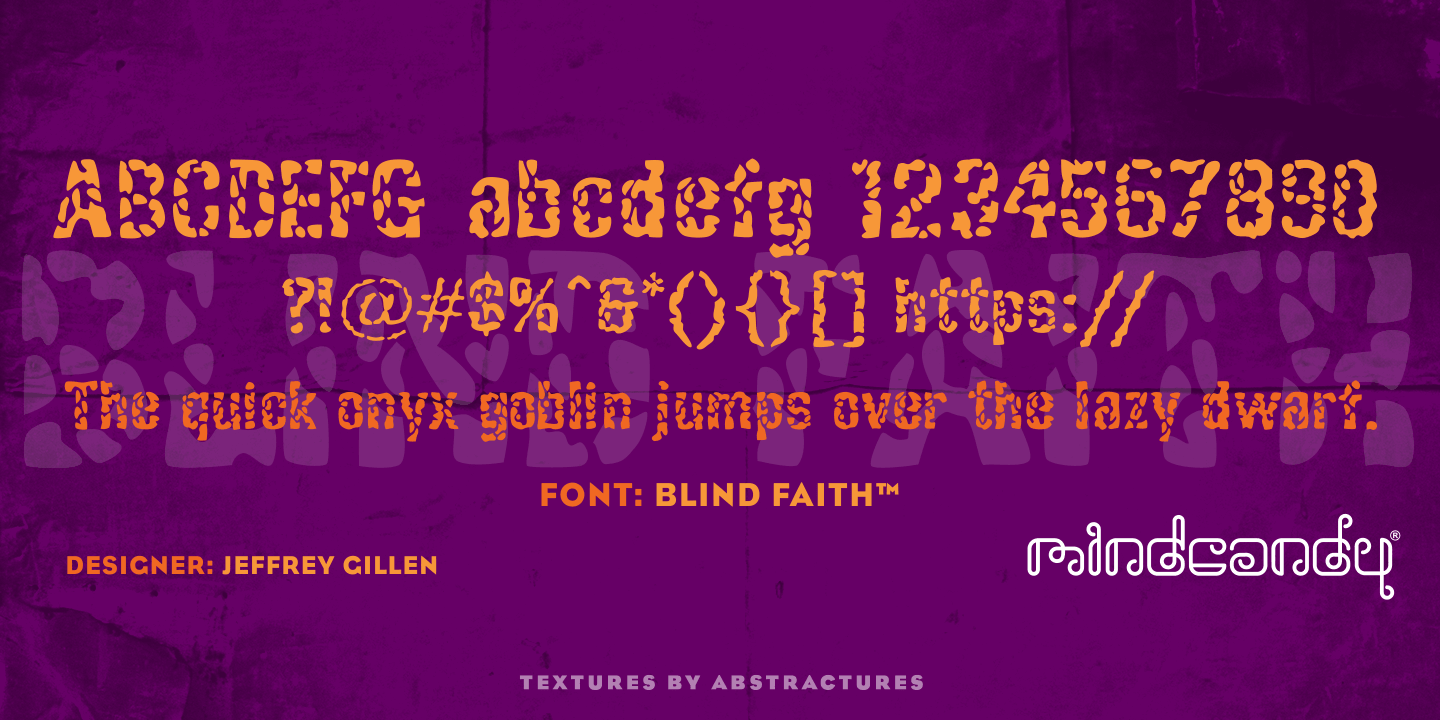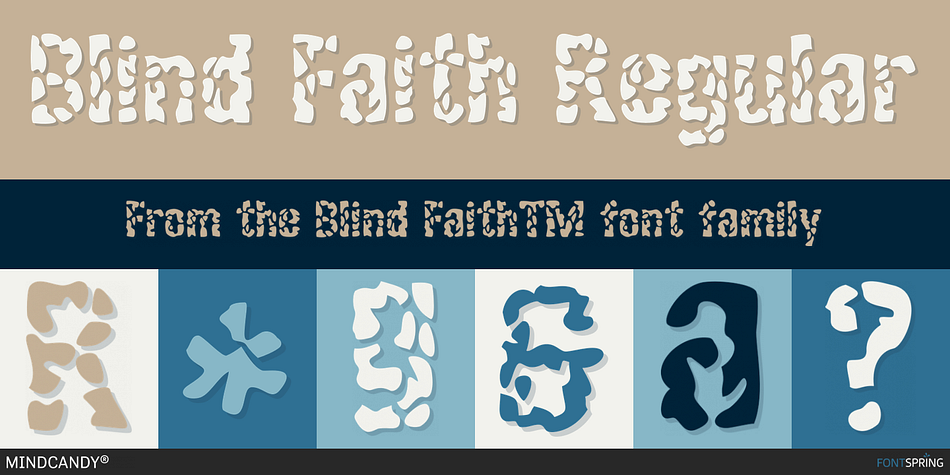
Designed by Jeff Gillen, Blind Faith™ is a grunge font published by MINDCANDY.
Blind Faith™ is a grunge style font that utilizes negative space and has an almost “camouflage” appearance. It contains both “thicks and thins” in each character that makes it really stand out from other grunge-style typefaces. For a grunge font, it is highly legible and bold in nature, with soft and smooth edges. Both positive and negative spaces really capture the essence of the concept of “blind faith”, paradoxically both concrete and ethereal. Earthly yet heavenly and celestial. Tangible and imaginary. © 1998. All Rights Reserved. Designed by Jeff Gillen. Distributed with permission by Mindcandy® on Fontspring.com.